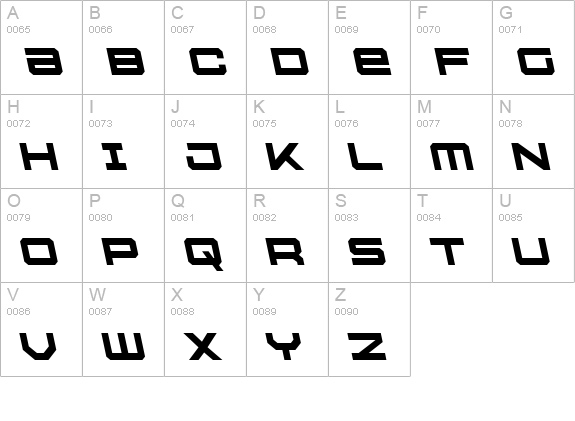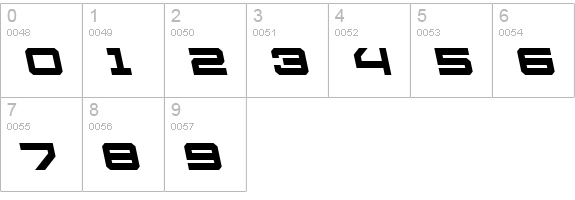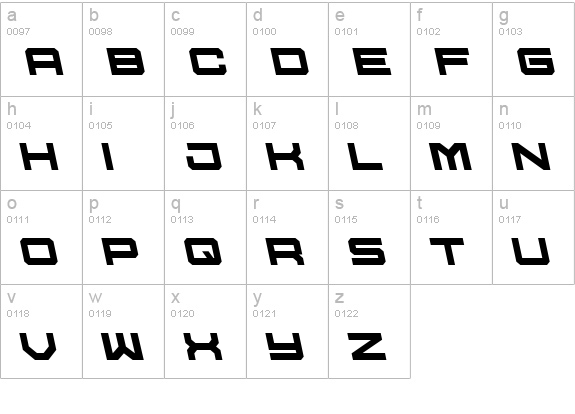
U.S.S. Dallas Leftalic font is a sleek and modern typeface that exudes sophistication and elegance. Its slanted style adds a touch of dynamic flair to any design project, making it perfect for headers, logos, and other creative endeavors. This font is available for free download at FontsMarket.com, allowing you to easily access and incorporate it into your work without any cost. With U.S.S. Dallas Leftalic font, you can elevate your designs with a touch of contemporary style and professionalism.